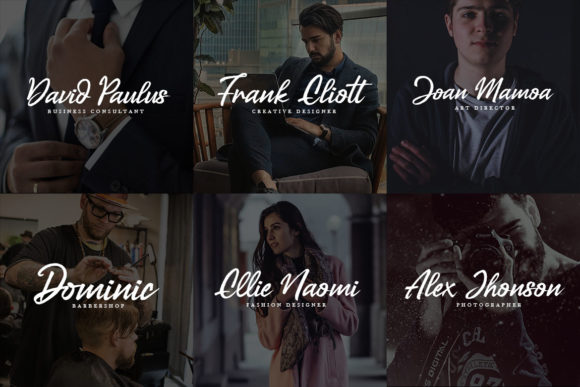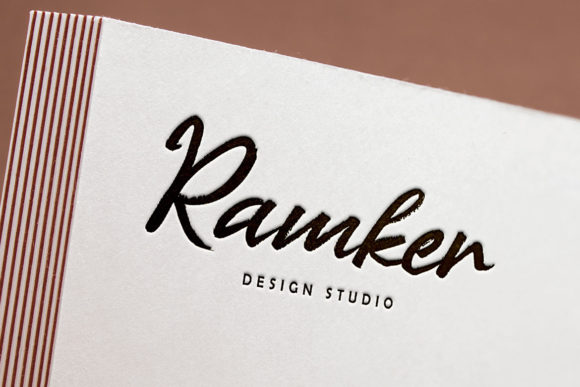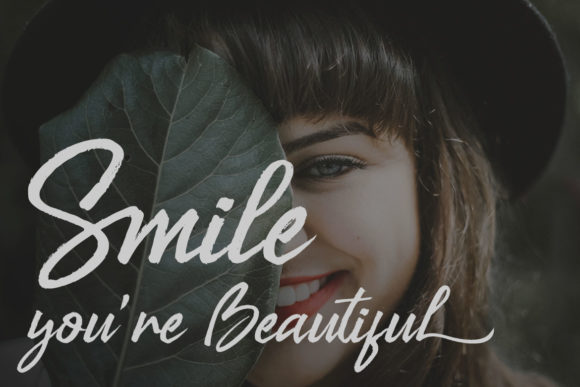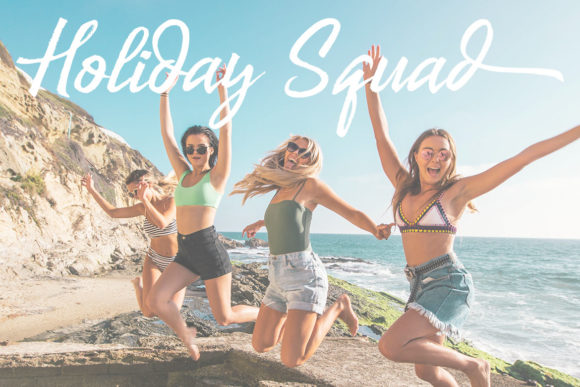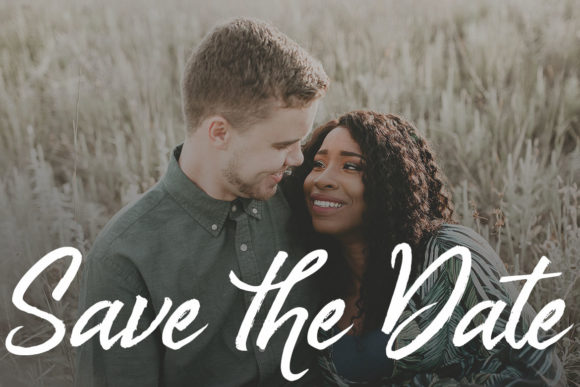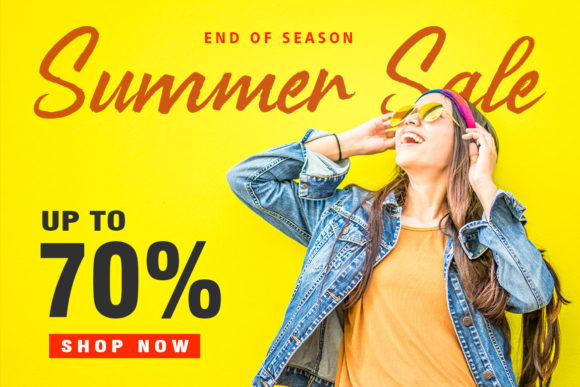
Discover the Unique Charm of Bill Smith Font: A Simple yet Powerful Typeface
In the world of typography, fonts play a crucial role in conveying messages, expressing emotions, and creating a lasting impression. Among the numerous fonts available, the Bill Smith font stands out for its distinctive textured style and simplicity. This signature font has gained popularity among designers, crafters, and artists for its versatility and effectiveness in various design applications.
The Basis of Bill Smith Font: Simplicity
The Bill Smith font is built on the principle of simplicity, which makes it a powerful tool for designers. Its clean lines, subtle texture, and classic look make it an ideal choice for projects that require a straightforward yet impactful typeface. The font’s simplicity allows it to blend seamlessly with various design elements, making it a versatile option for a wide range of applications.
Perfect for Photography, Signatures, Branding, and More
The Bill Smith font is particularly well-suited for photography, signatures, branding, and other designs that require a simple yet strong typeface. Its textured style adds a touch of warmth and character to any design, making it perfect for:
- Photography: Use the Bill Smith font to add a personal touch to your photo captions, titles, or quotes. Its simplicity and texture complement images beautifully, creating a visually appealing combination.
- Signatures: The Bill Smith font is an excellent choice for creating custom signatures. Its unique texture and classic look make it an ideal option for professionals, artists, and individuals looking to add a personal touch to their signatures.
- Branding: The font’s simplicity and versatility make it an excellent choice for branding projects. Use it to create logos, business cards, or marketing materials that require a strong, yet straightforward typeface.
- Designs: The Bill Smith font is perfect for various design projects, such as posters, flyers, brochures, and more. Its textured style and classic look make it an excellent option for creating visually appealing designs.
Why Designers and Crafters Love Bill Smith Font
Designers and crafters appreciate the Bill Smith font for its unique characteristics, which set it apart from other fonts. Here are some reasons why:
- Unique Texture: The font’s textured style adds a touch of warmth and character to any design, making it stand out from other fonts.
- Simplicity: The Bill Smith font’s simplicity makes it easy to read and understand, making it perfect for designs that require a clear and concise message.
- Versatility: The font’s classic look and textured style make it suitable for various design applications, from photography to branding.
- Easy to Use: The Bill Smith font is easy to use and can be applied to various design projects, making it a convenient option for designers and crafters.
Tips for Using Bill Smith Font Effectively
To get the most out of the Bill Smith font, consider the following tips:
- Pair it with Images: Combine the Bill Smith font with high-quality images to create visually appealing designs.
- Experiment with Colors: Try different color combinations to find the perfect match for your design.
- Use it for Headings: The Bill Smith font is perfect for headings, titles, and captions. Use it to add a touch of elegance and sophistication to your designs.
- Mix and Match: Experiment with different fonts and styles to create a unique look that complements the Bill Smith font.
| Font Name | Bill Smith Font |
| Author | Subectype |
The Bill Smith font is a signature font with a textured style that offers a unique blend of simplicity and character. Its versatility, ease of use, and classic look make it an excellent choice for designers, crafters, and artists. Whether you’re working on a photography project, creating a custom signature, or designing a brand identity, the Bill Smith font is an excellent option to consider. With its distinctive charm and simplicity, this font is sure to elevate your designs and leave a lasting impression.